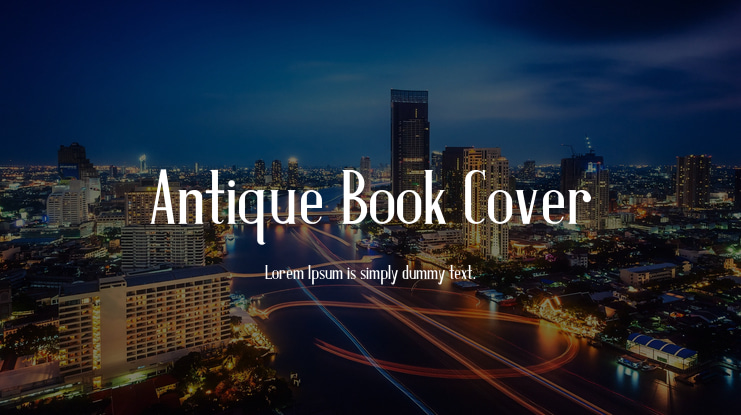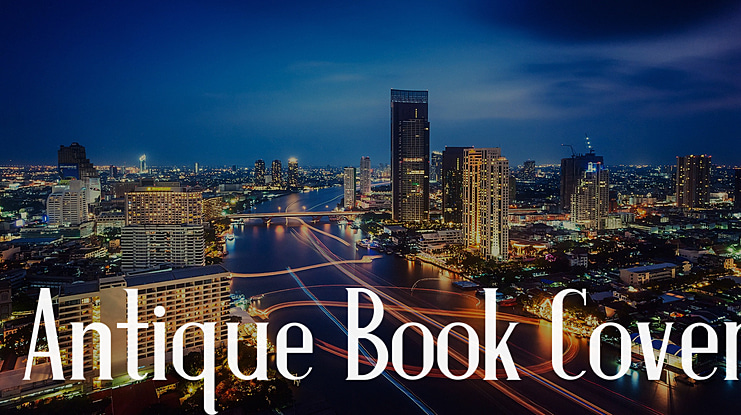
Antique Book Cover Font
This font was inspired by vintage book covers from a time period where fonts were so clean they were the only thing needed on a cover.